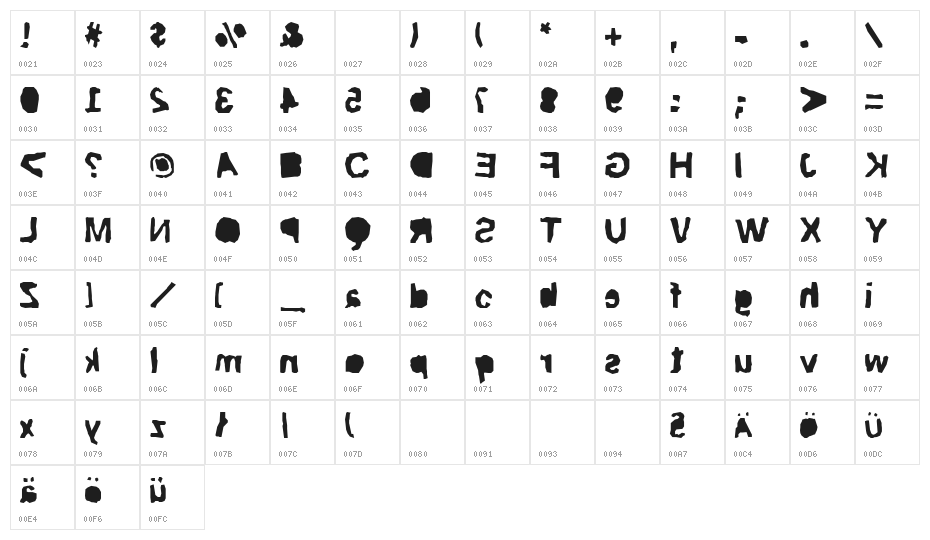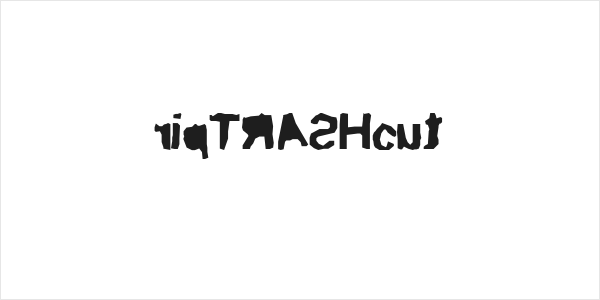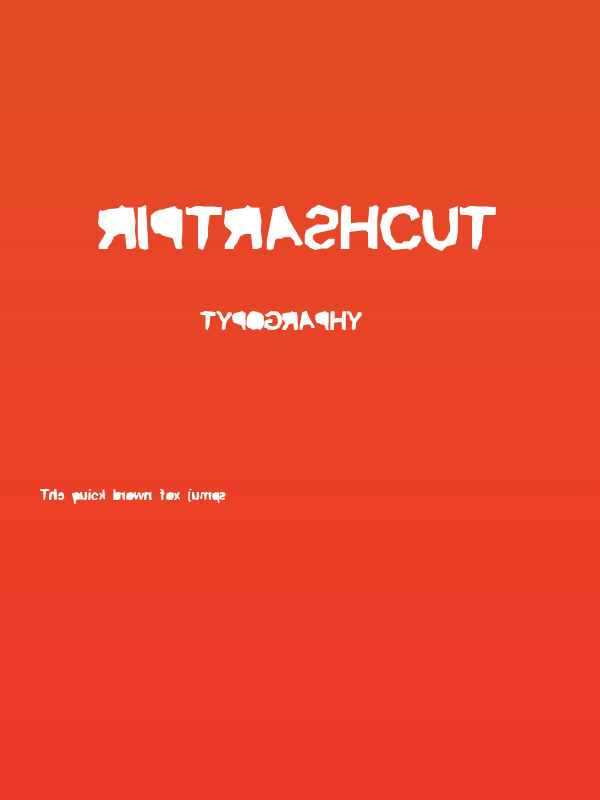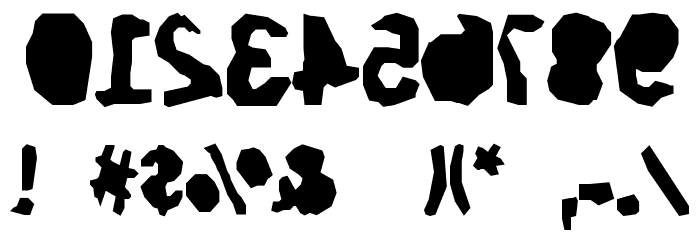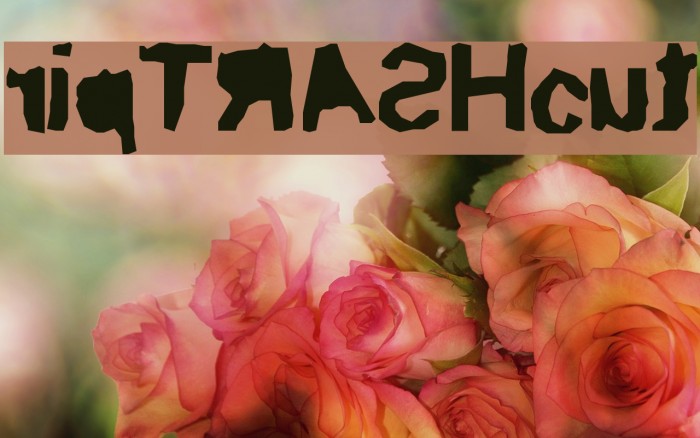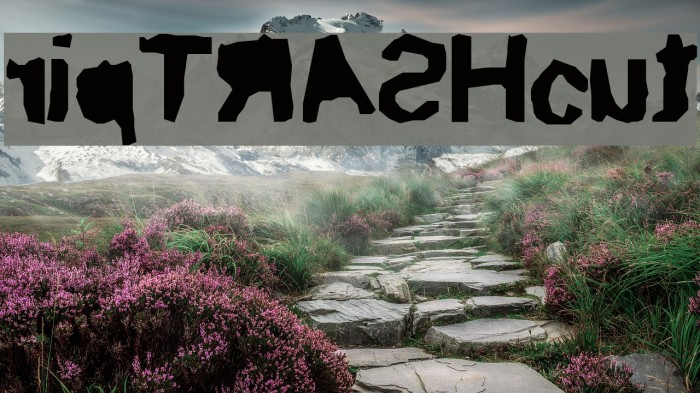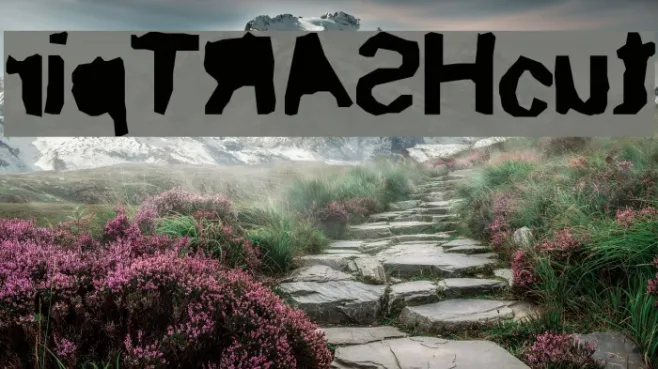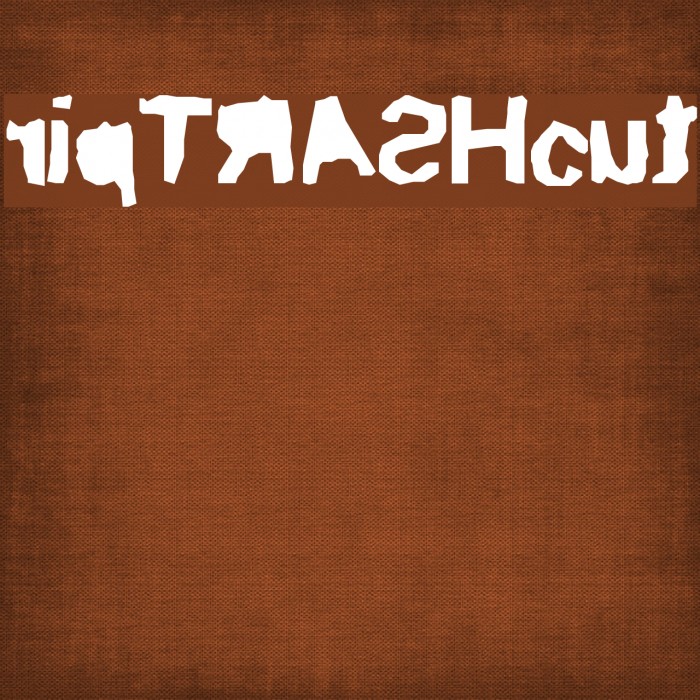
ripTRASHcut Font
ripTRASHcut Description
This font exhibits a rugged, distressed style with irregular edges and a bold, impactful presence. The characters are heavily stylized, giving them a unique, hand-crafted appearance. The uppercase and lowercase letters maintain a consistent design theme, with a playful yet chaotic aesthetic. Numbers and special characters follow the same design principles, adding to the font's cohesive look. This font's distinctiveness makes it stand out, ideal for projects that require a strong visual impact.
| Proposed Projects | Ideal for album covers, posters, street art designs, and edgy branding projects. |